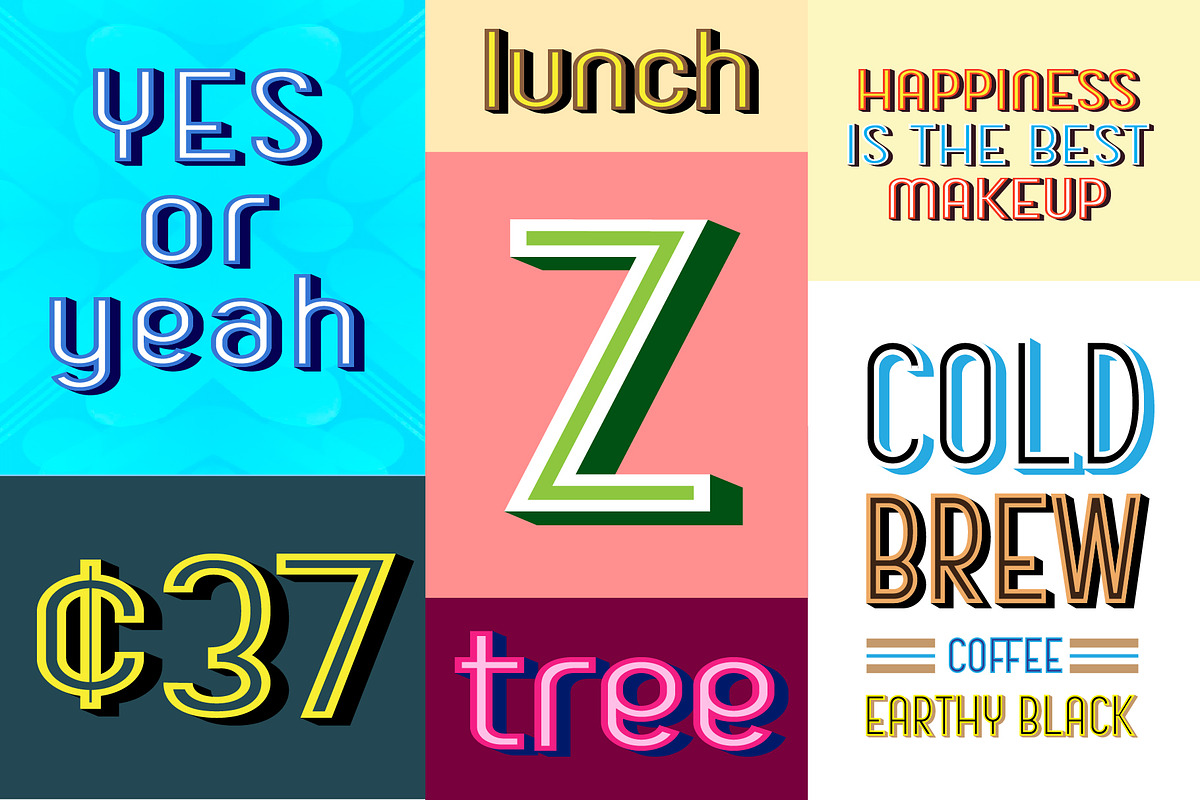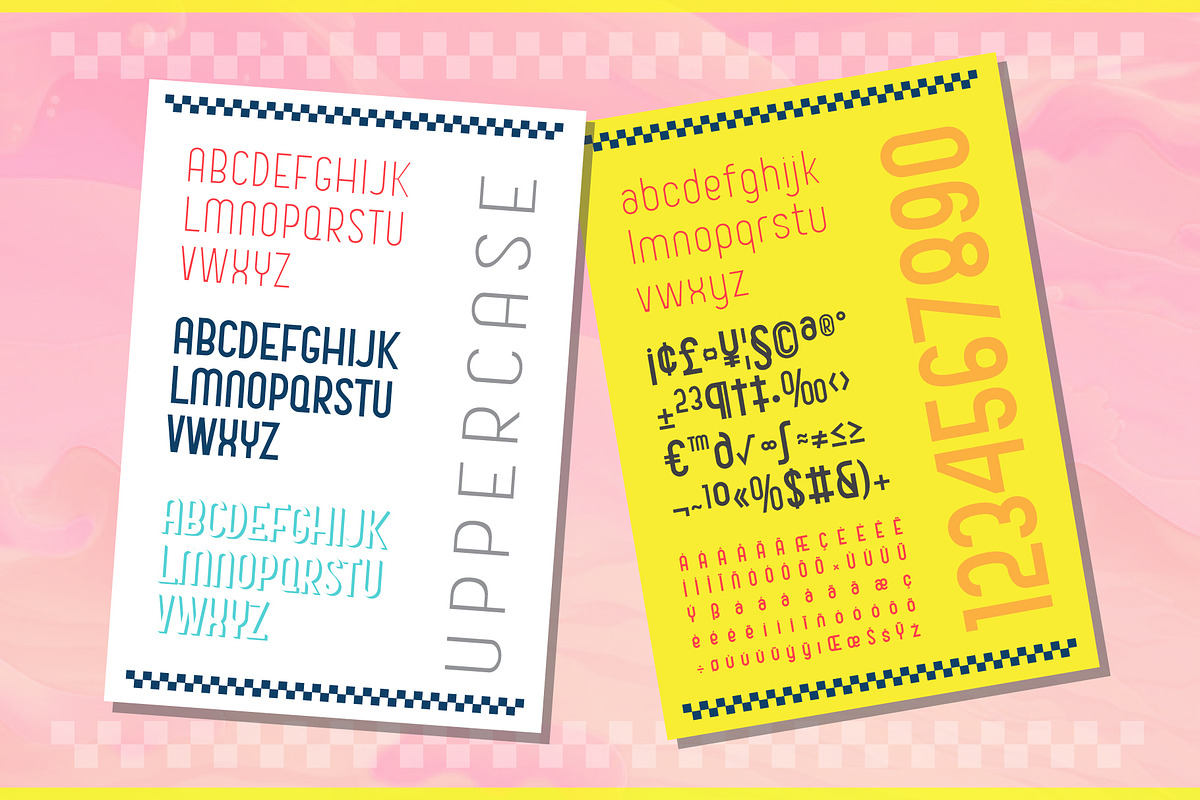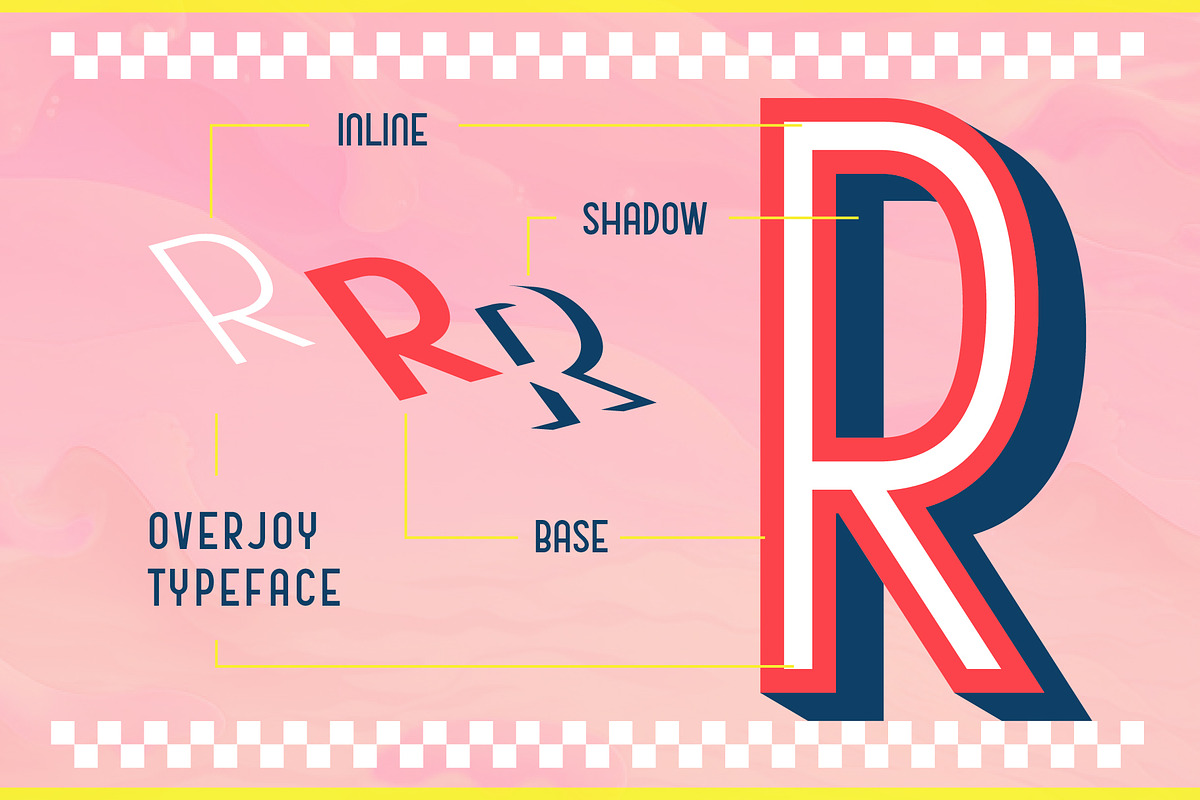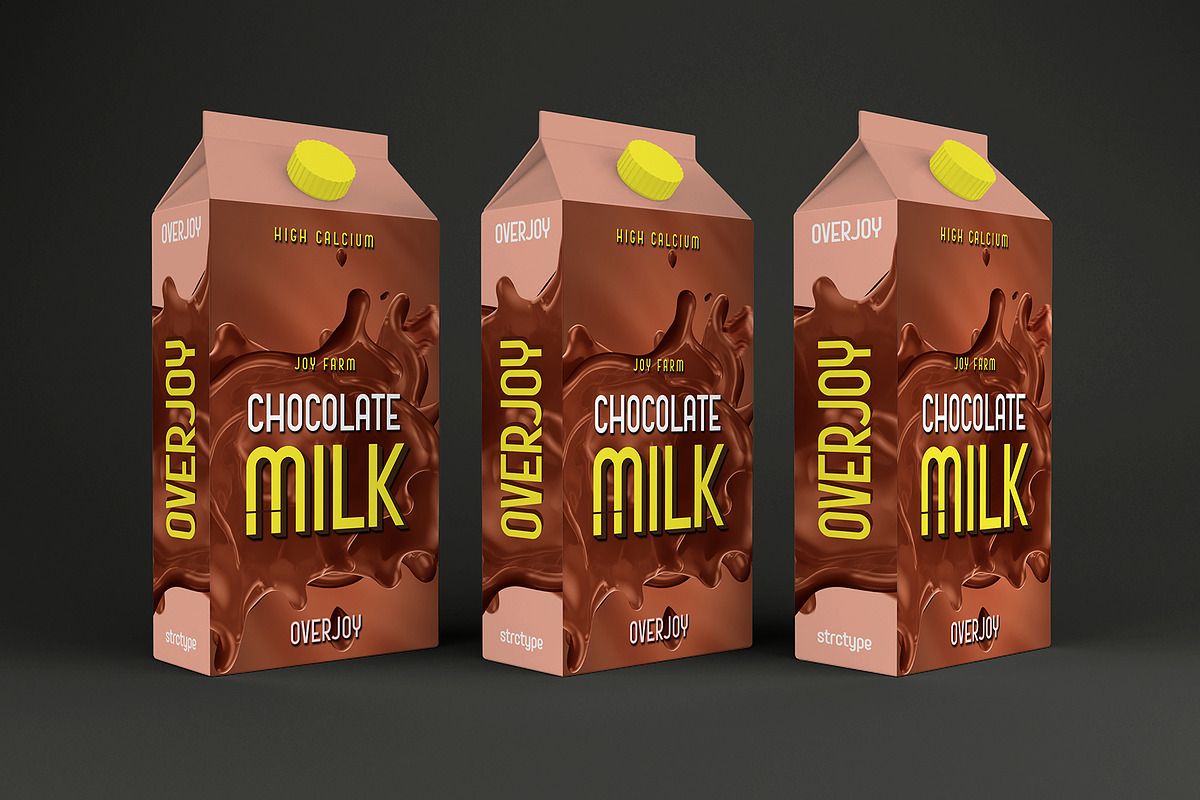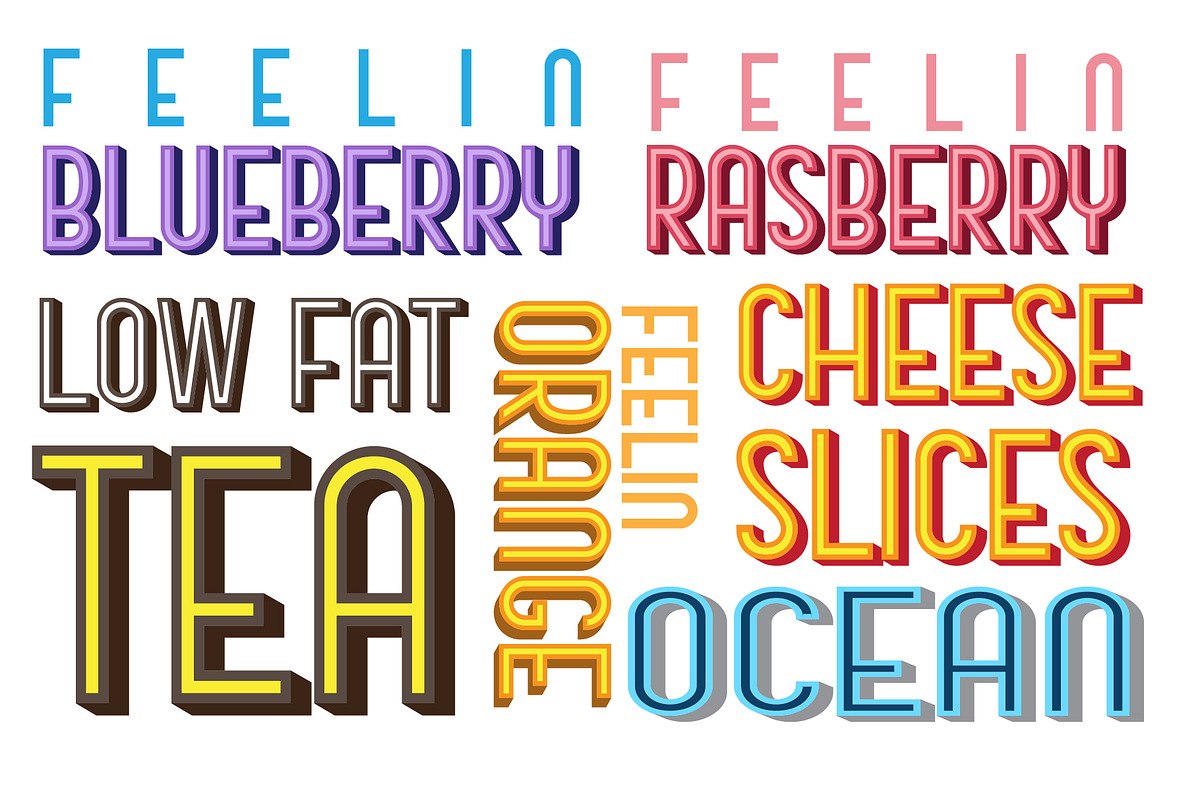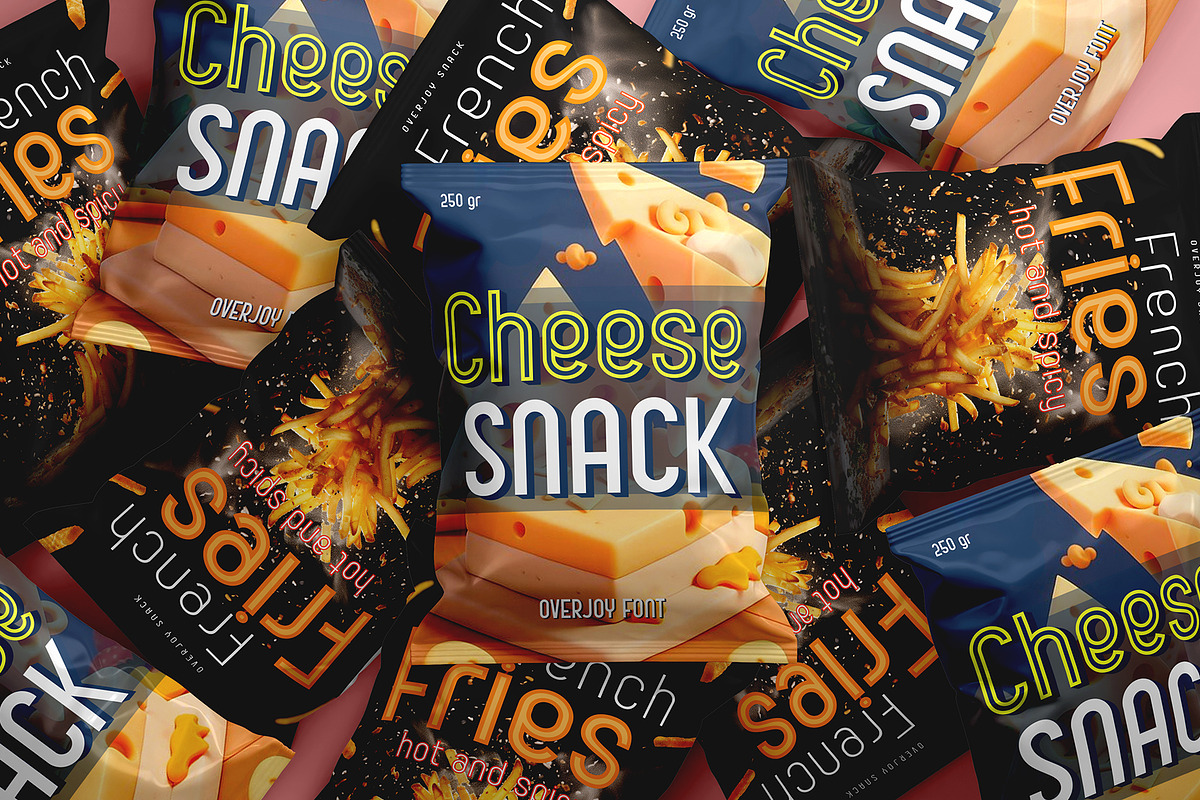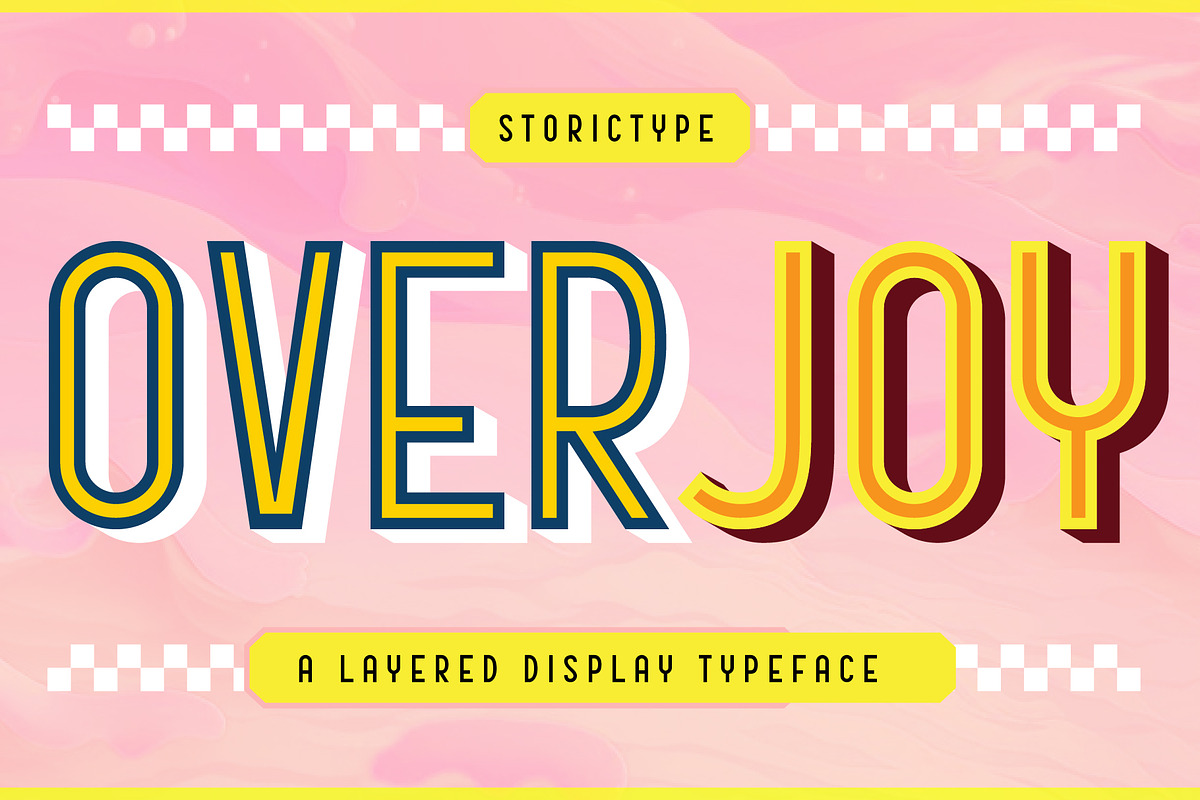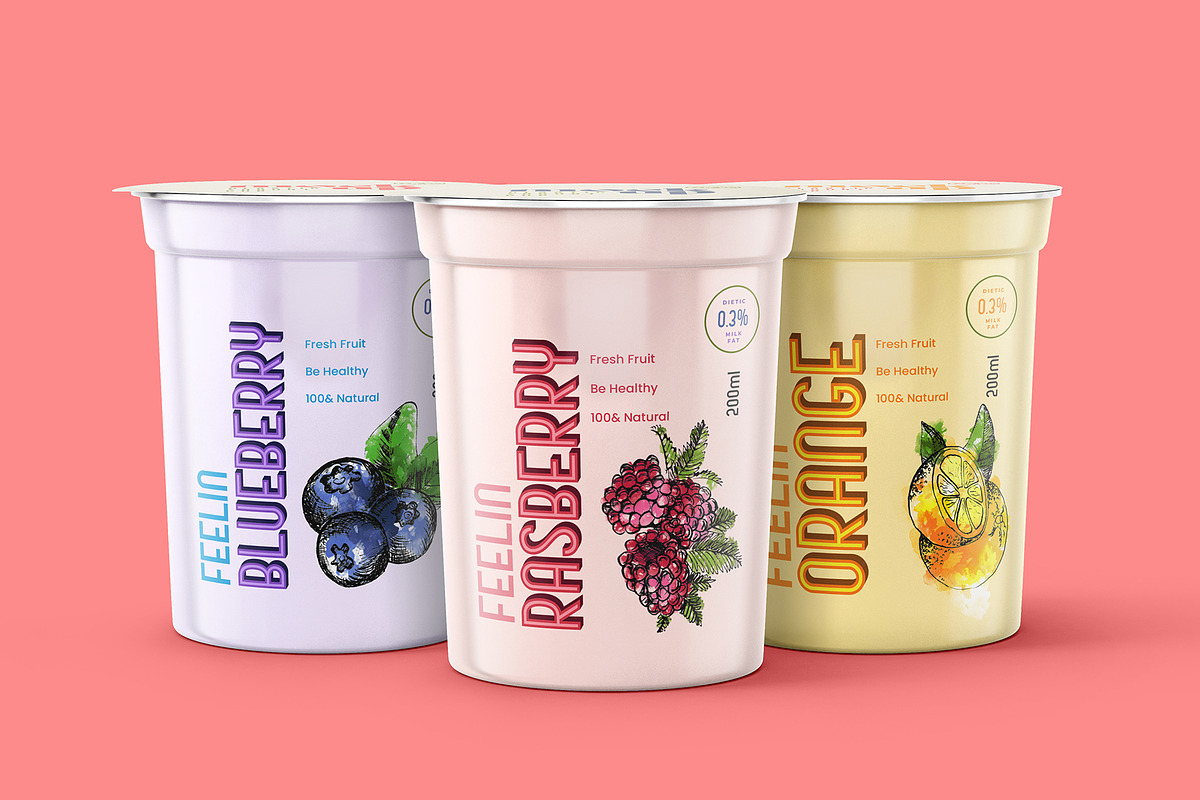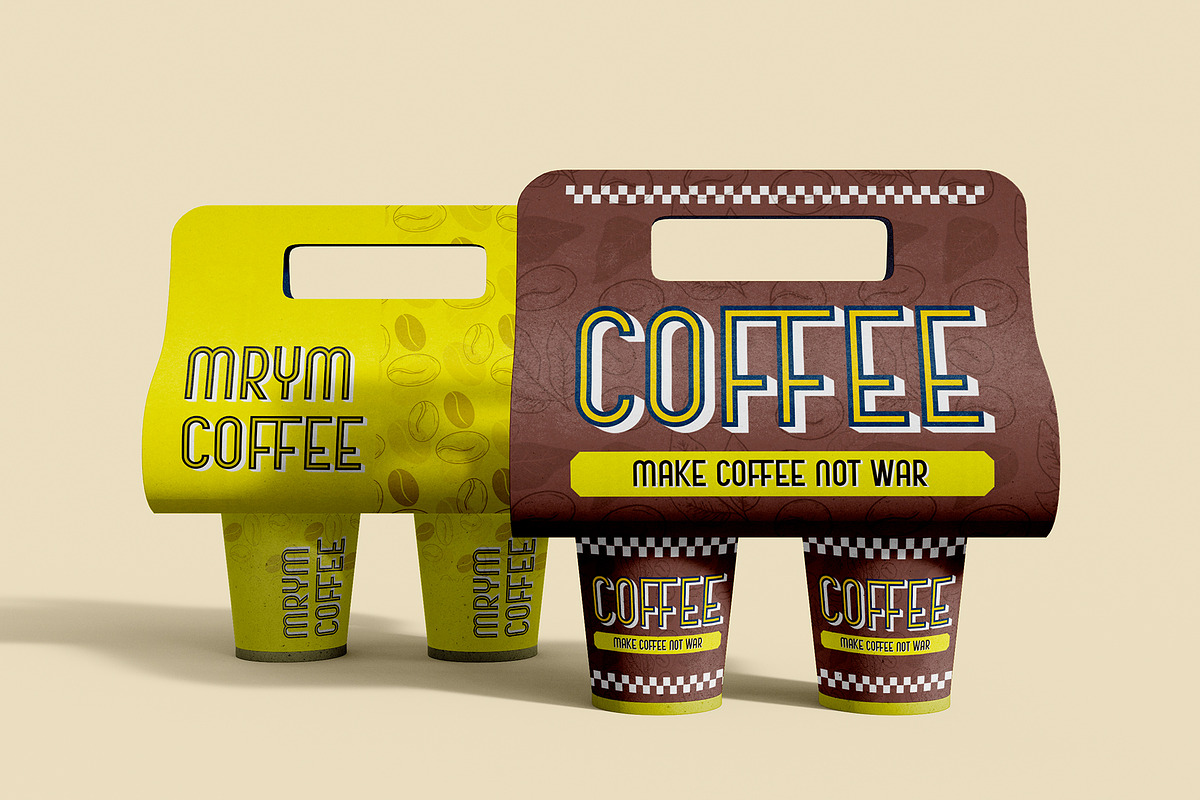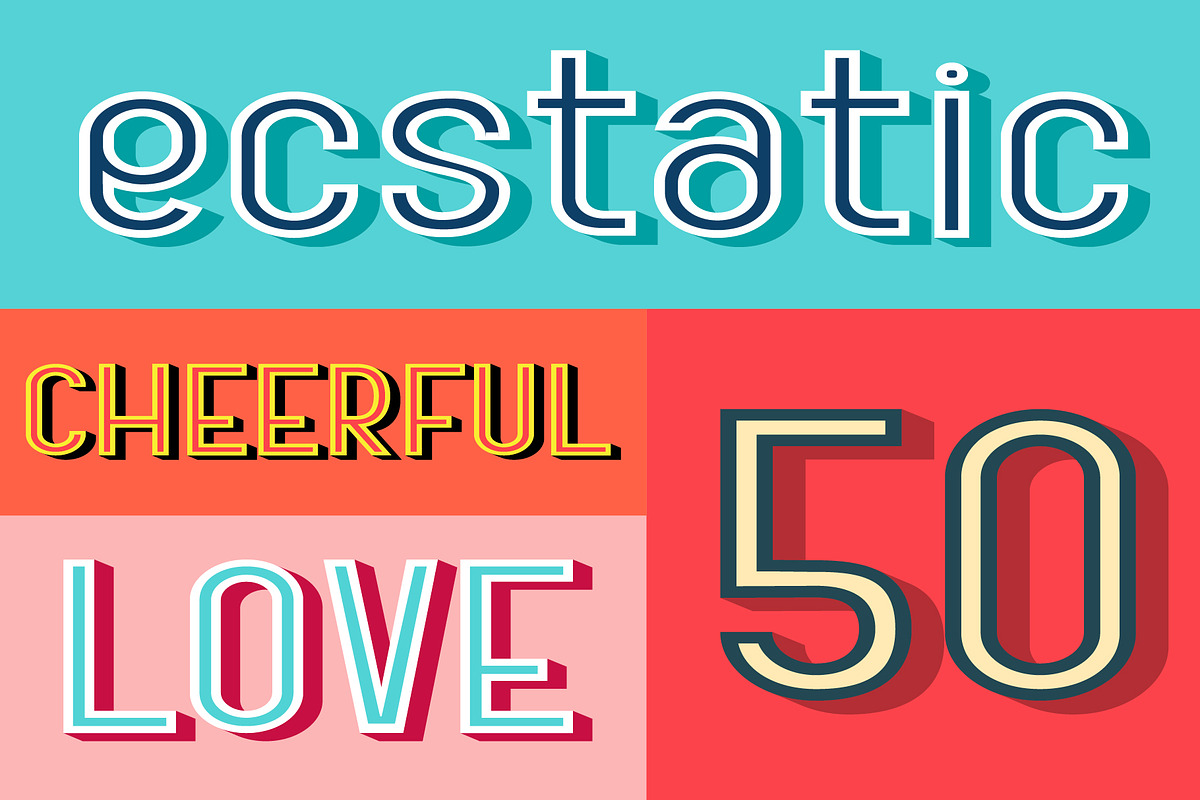
OVERJOY
Introducing Overjoy - an intricately designed layered san serif typeface, developed to overjoy every designer who appreciates tastefully created fonts. It finds its inspiration from a diverse catalog, with a key focus on arid landscapes and refreshing beverages. As such, the appeal of Overjoy radiates seamlessly across a broad spectrum tied to these themes.
Overjoy presents itself as fun, flexible, charming, and aesthetically pleasing. The typeface consists of three carefully composed layers – Inline, Base, and Shadow. These layers are engineered to perfection, adding a bold contrast and enhancing the striking impressiveness of a headline.
Every glyph and alternate offered with Overjoy is handpicked without compromising on the font's unique characteristics. Through its demonstration on a multitude of design displays, Overjoy proves its versatility. Whether it's a brand identity, magazine header, logotype, poster, packaging, food menu, or anything else that requires a distinct typography - Overjoy gracefully fits in. It not only complements your design aesthetics but enhances the overall appeal, underlining the adage that indeed, Overjoy can effortlessly sync with diverse design styles.